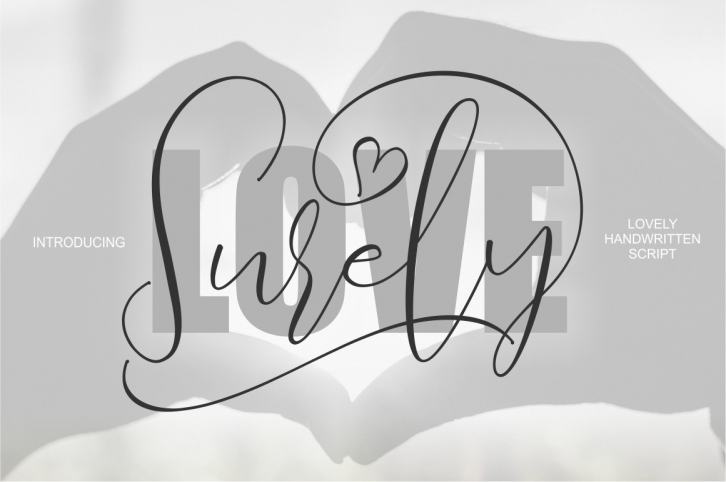
Love Surely is a great font that was designed by Bonjour Type. Imagine the amount of combinations you can create using this font! The archive is 7.51 MB and it was released on January 23, 2019. Love Surely looks beautiful on wedding invitations, greeting cards, logos, posters, labels, t-shirt designs, logos, business cards and is perfect for use in ink or watercolor works, fashion, magazines, packaging and food menus, children's books and more!